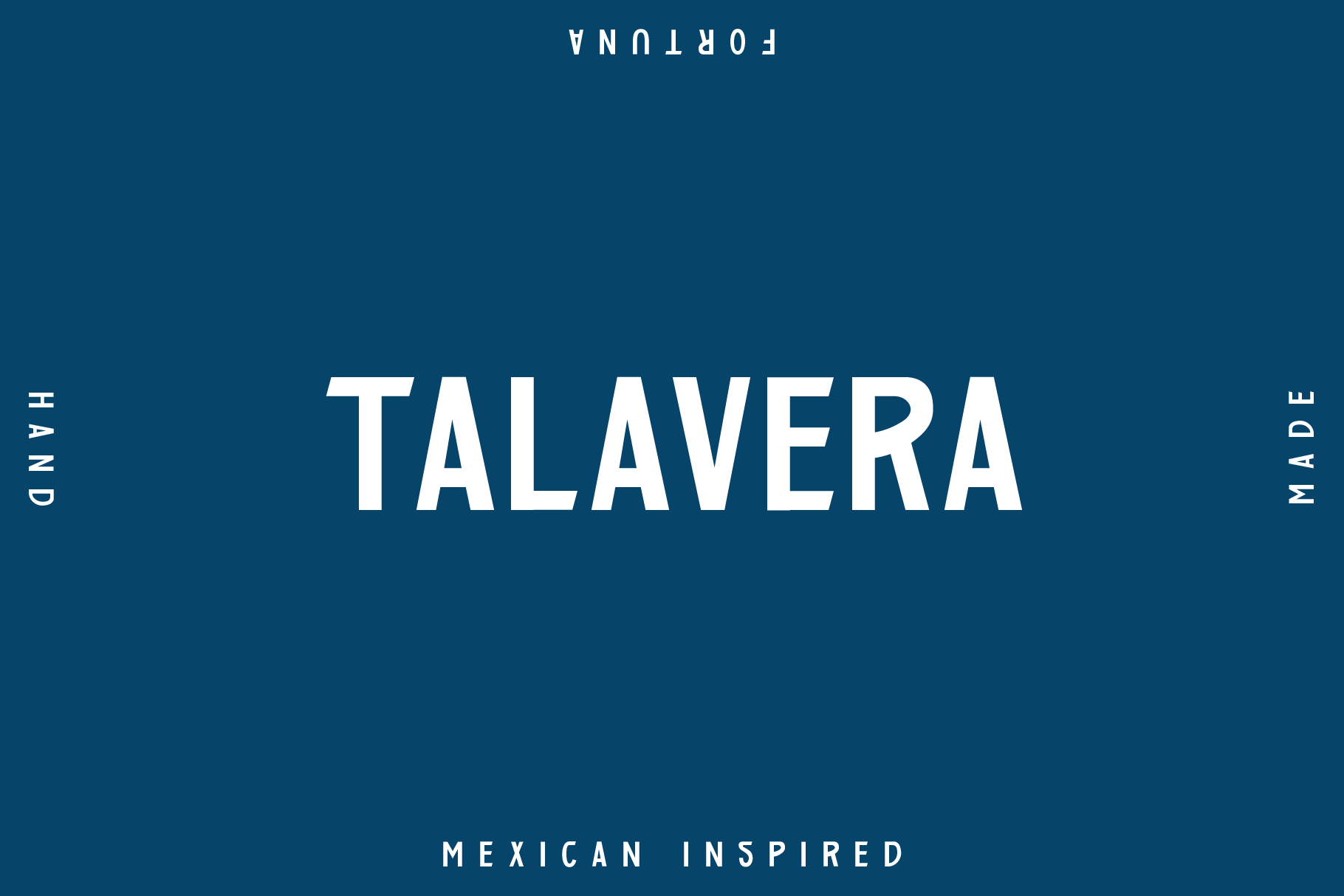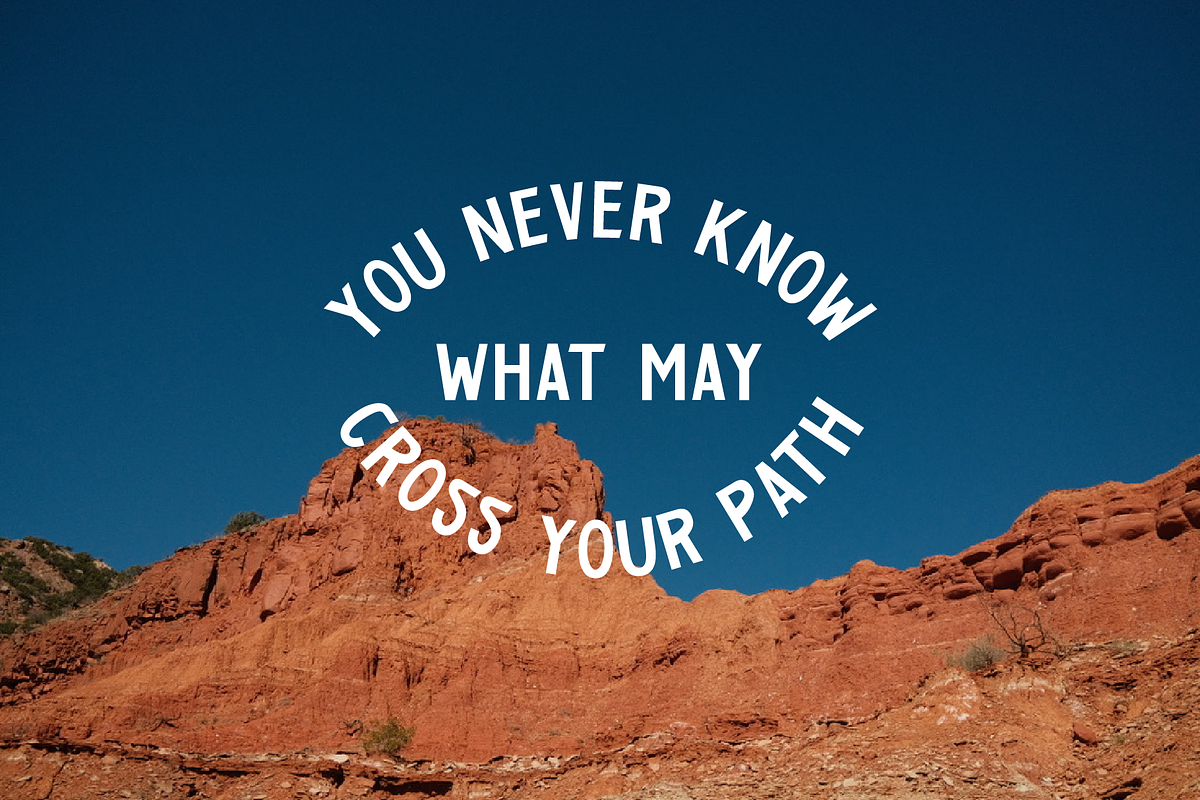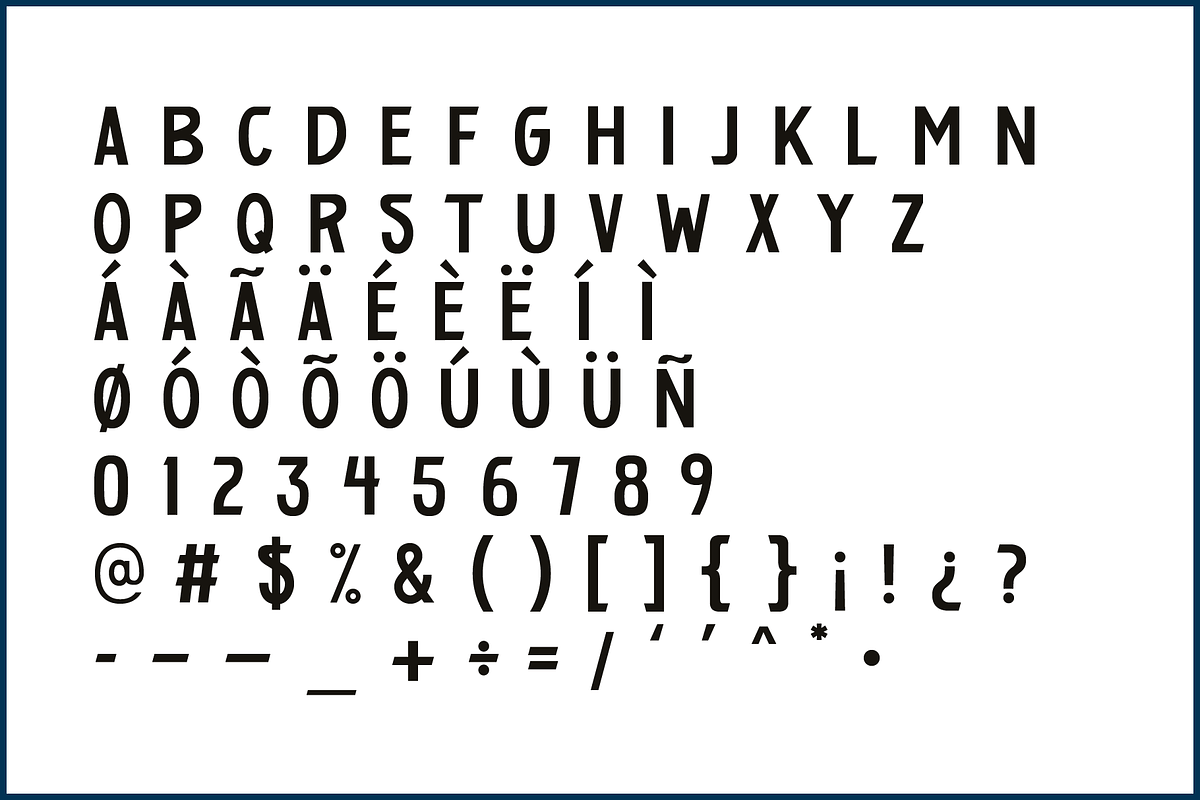
Talavera: Sans Serif Display Font
Talavera is inspired by sign painting in Rosarito, MX.
Given its root inspiration, this font is perfect for headline applications and quirky text paths.